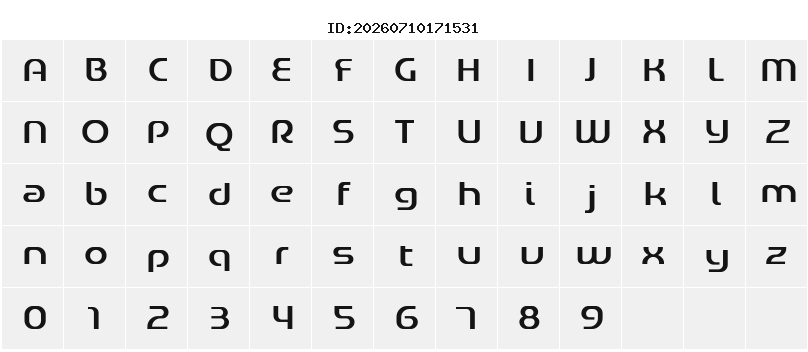
GeneticDefect Preview
• Font Name: GeneticDefect
• Full Font Name: GeneticDefect
About GeneticDefect.ttf
GeneticDefect.ttf is a modern, elegant sans-serif font designed for ultimate readability and visual harmony. Perfect for branding, headlines, web design, and print materials.